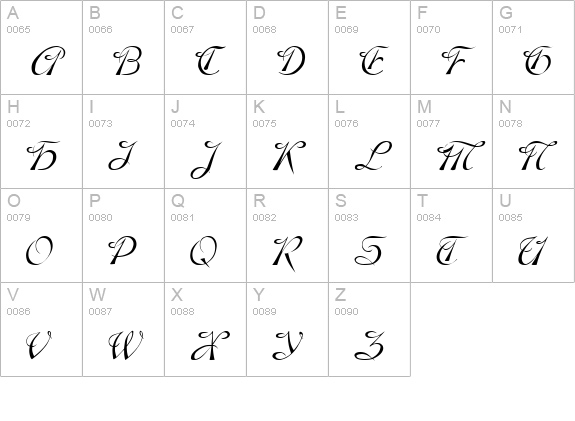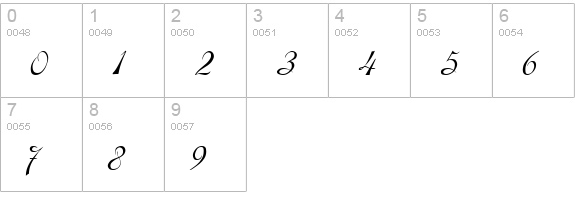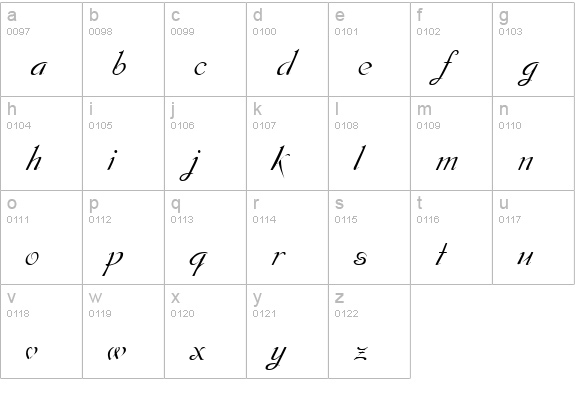
Dobkin Plain Font Details
Dobkin Plain font is a timeless and elegant typeface that exudes sophistication and charm. Its clean lines and classic design make it perfect for a wide range of design projects, from invitations to branding materials. This versatile font is sure to make your text stand out and leave a lasting impression. The best part? Dobkin Plain font is completely free to download at FontsMarket.com. So you can add a touch of sophistication to your designs without breaking the bank. Don't miss out on this beautiful font that will elevate your projects to the next level. Download Dobkin Plain now and let your creativity shine!